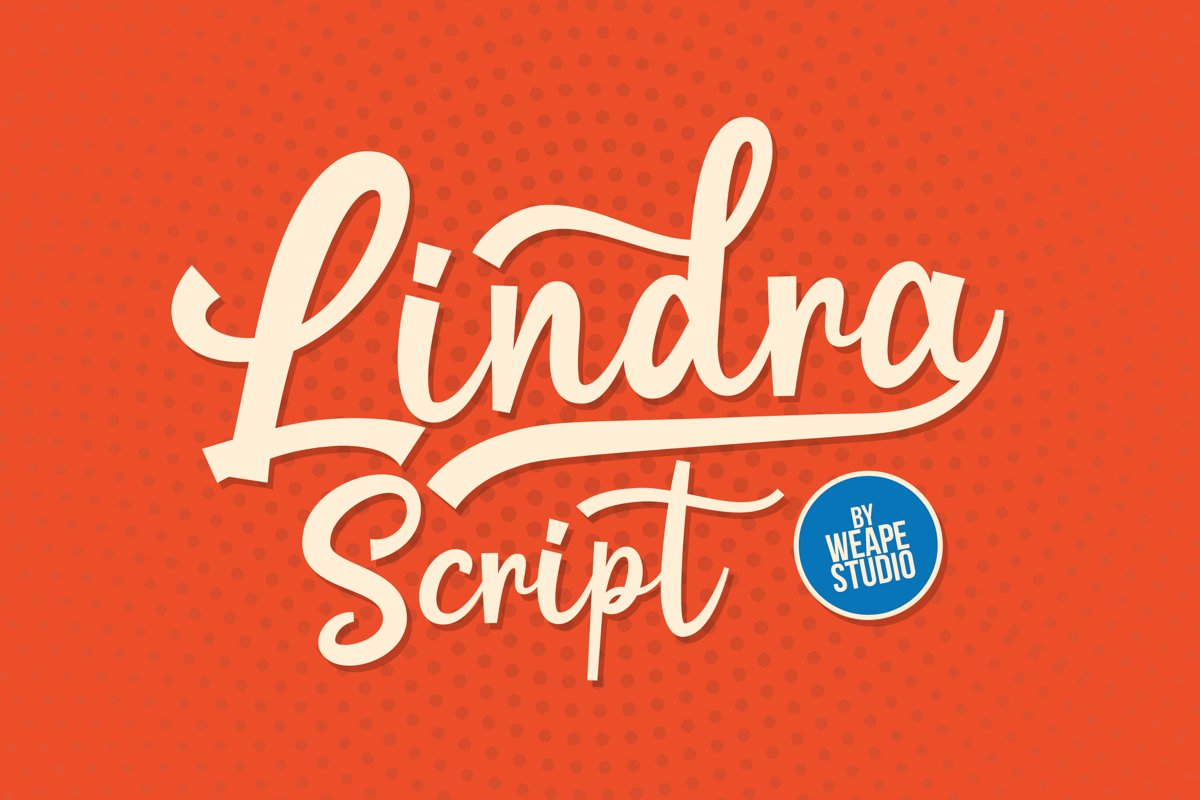
Lindra Script
Lindra
Introducing Lindra Script! Hand lettered font with clean style and casual. Lindra Script is perfect for your daily project, branding projects, product packaging, logo, fashion, apparel, photography, watermark, quotes, blog header, poster, wedding, invitation, stationery, tshirt design, or simply as a stylish text overlay to any background image.
And Lindra Script comes with uppercase, lowercase, numerals, punctuations, ligatures, swashes, and multilingual support.